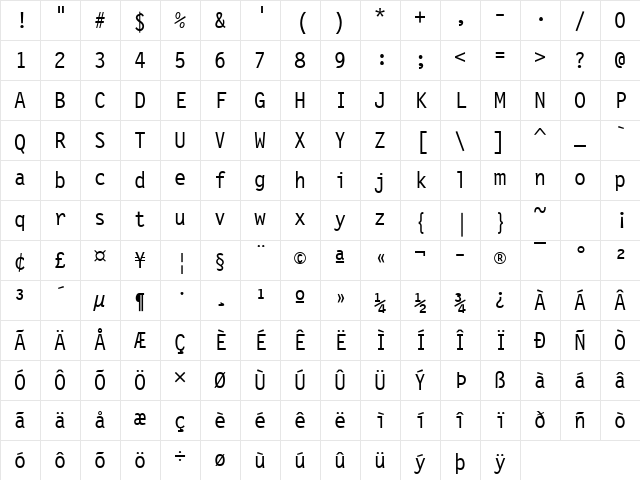
Financial Regular Free Font
Financial Regular
Design Context for Financial
Financial is a composed and adaptable typeface that performs quietly and consistently across a wide range of design contexts.